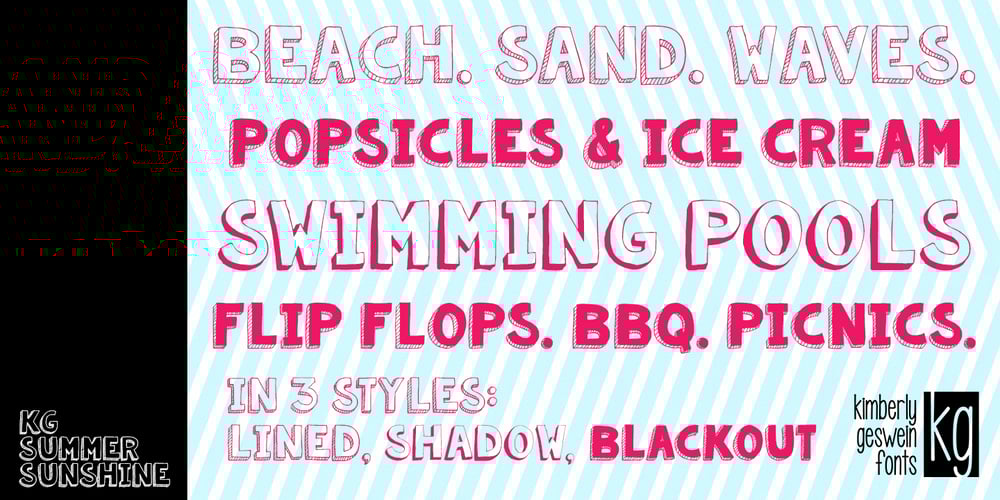
KG Summer Sunshine
KG Summer Sunshine font
KG Summer Sunshine Font Family was designed by Kimberly Geswein and published by Kimberly Geswein. KG Summer Sunshine contains 3 styles and family package options. A trio of 3 playful fonts perfect for summery, whimsical projects.